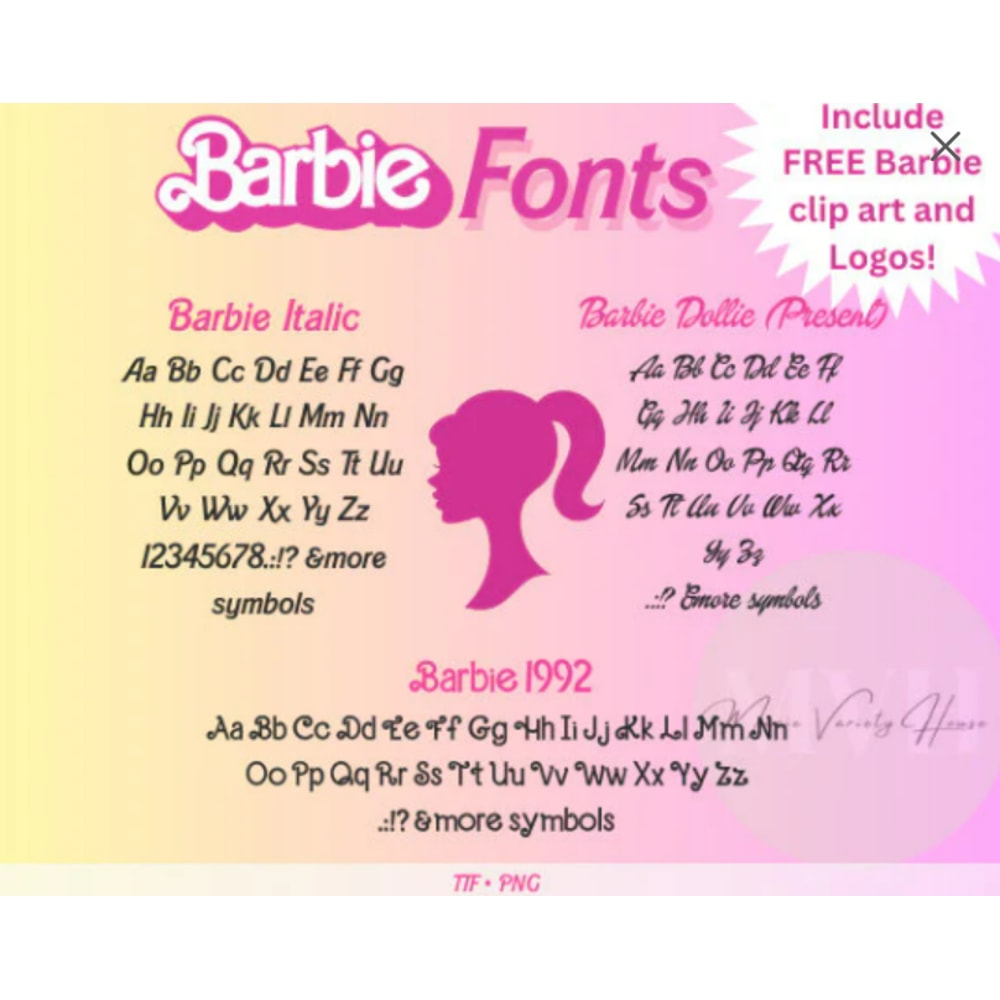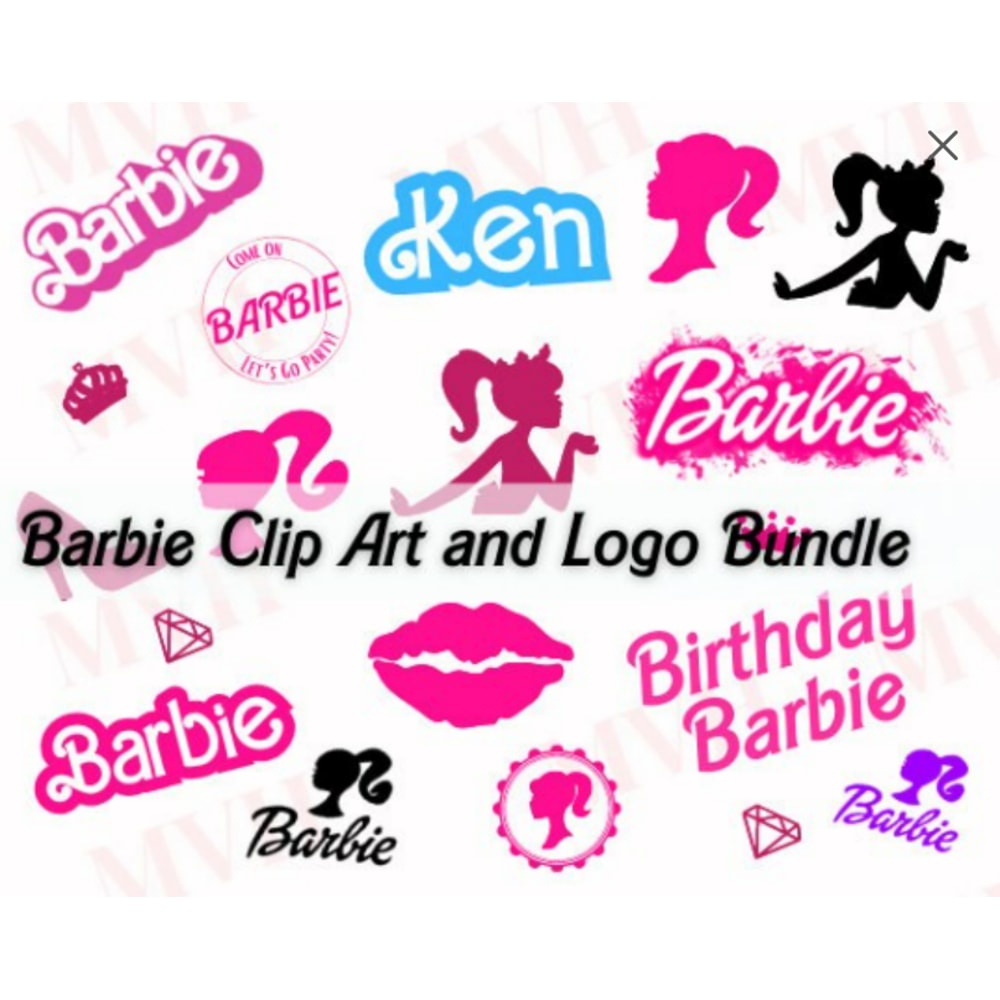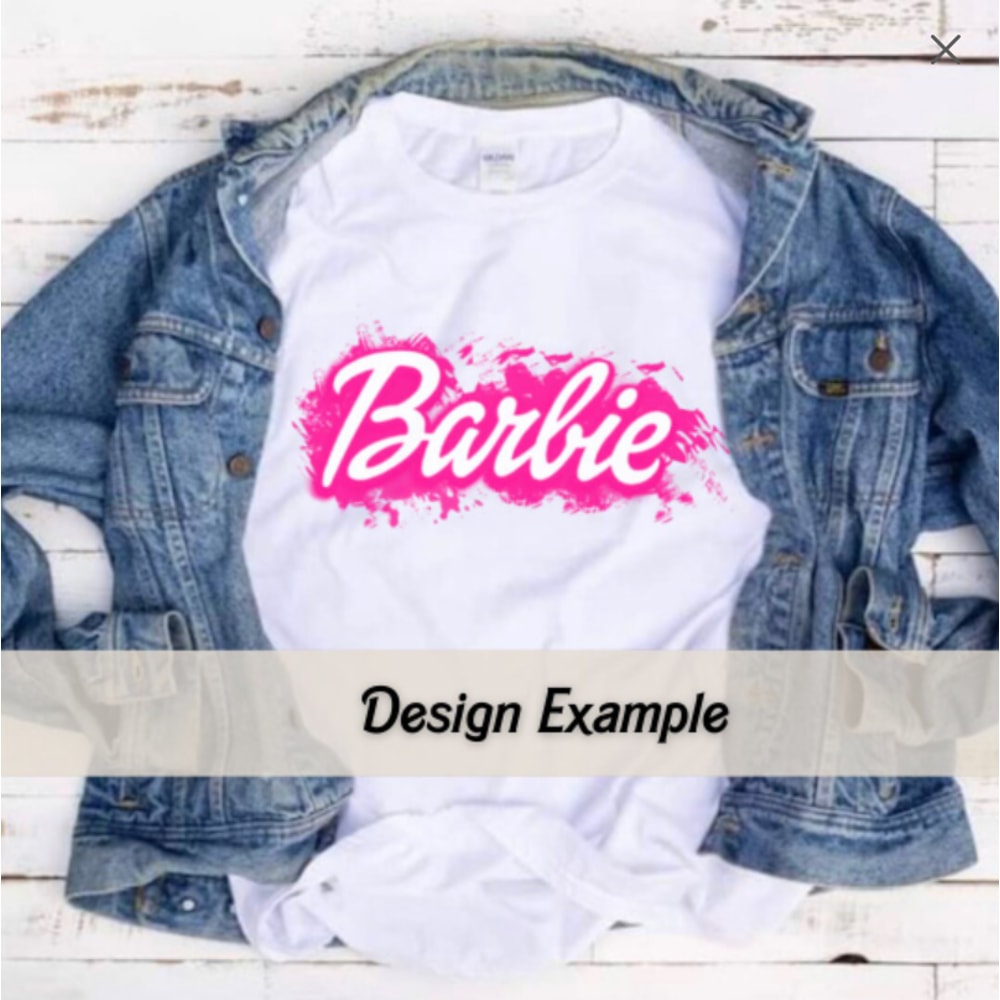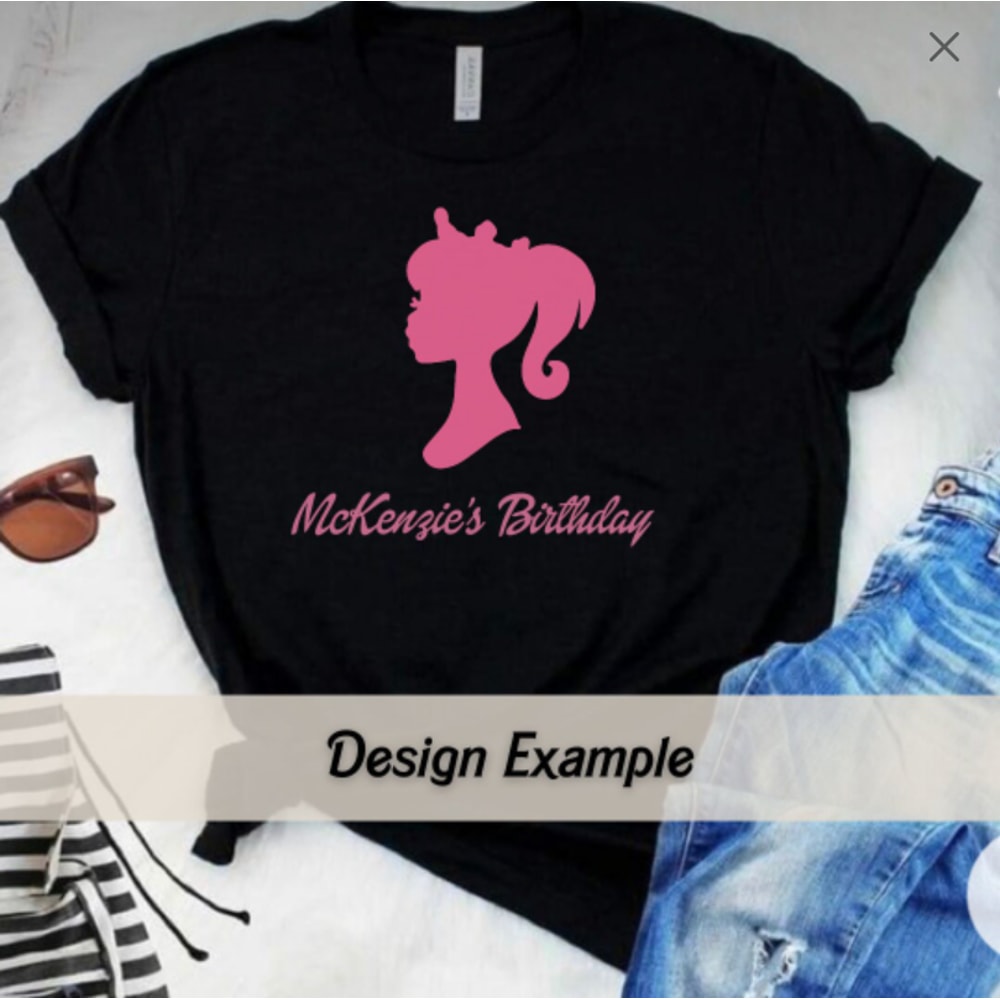
Doll Font - Barbi Edition, Pink dolly font letters, Vintage barb font
This bundle deal come with 3 Barb fonts,  from 1959 to present, that can be used to create any text you like. Included are free clip art and logos, for your creative project and designs. These designs are typically used for decorations, t-shirt printing, mugs, invitations, scrapbooking, pillow cases, paper crafting, and so much MORE...